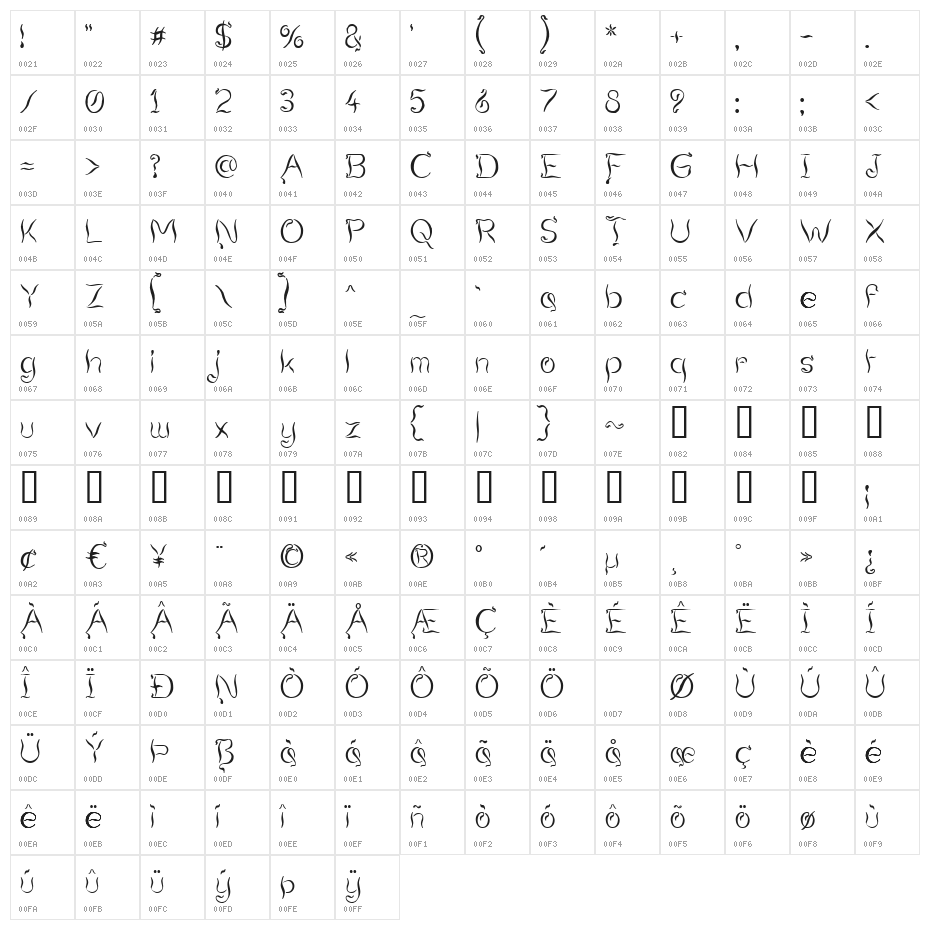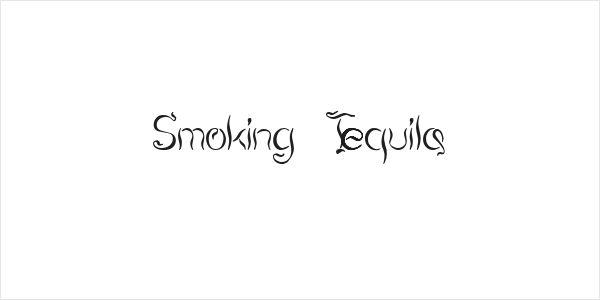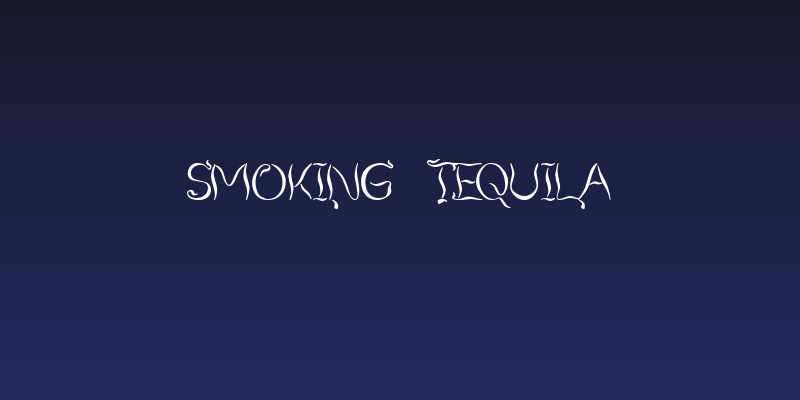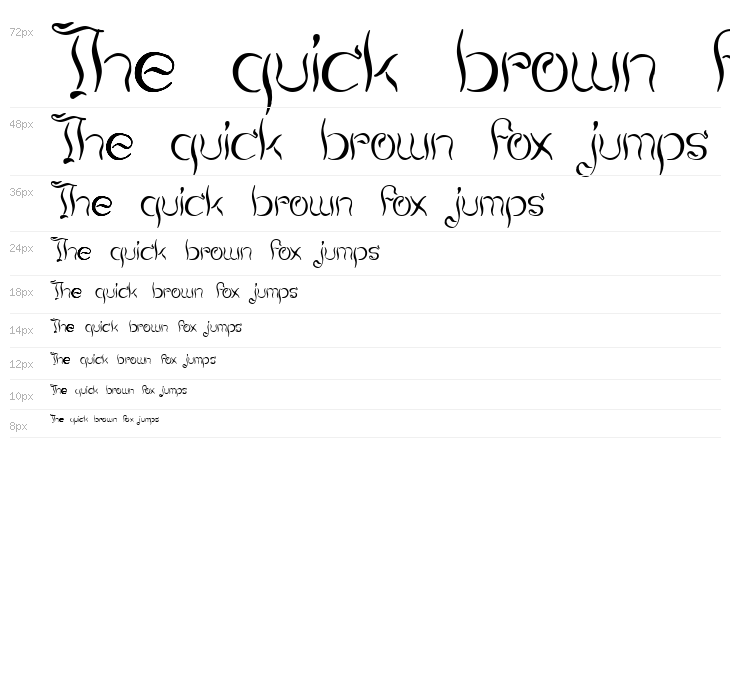
Smoking Tequila Font
Smoking Tequila Description
This font features a unique and artistic design with a flowing, almost calligraphic style. The characters have a distinct, hand-drawn appearance with varying stroke thicknesses that add a dynamic and lively feel. The uppercase letters are bold and prominent, while the lowercase letters maintain a consistent style, offering a harmonious blend. The numerals are equally stylized, fitting seamlessly with the overall aesthetic. Special characters are creatively integrated, enhancing the font's decorative appeal. This font is perfect for projects that require a touch of elegance and creativity.
| Proposed Projects | Ideal for branding, invitations, posters, and artistic projects that require a unique and elegant touch. |